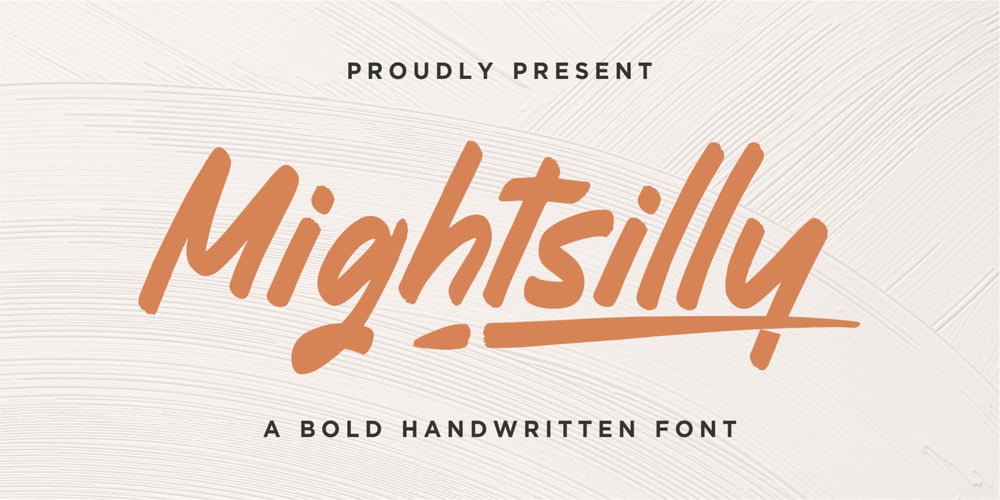
Mightsilly
Mightsilly font
Mightsilly Font Family was designed by Suhery Anto, Odies Dwi Yudhistira and published by Qwrtype Foundry. Mightsilly contains 1 styles and family package options. Proudly presenting Mightsilly is a bold handwritten font.Mightsilly is perfect for product packaging, branding project, magazine, social media, wedding invitations, or just used to express words above the background.Mightsilly also comes with multilingual support.Enjoy the font, feel free to comment or feedback, send me PM or email.Thank you!